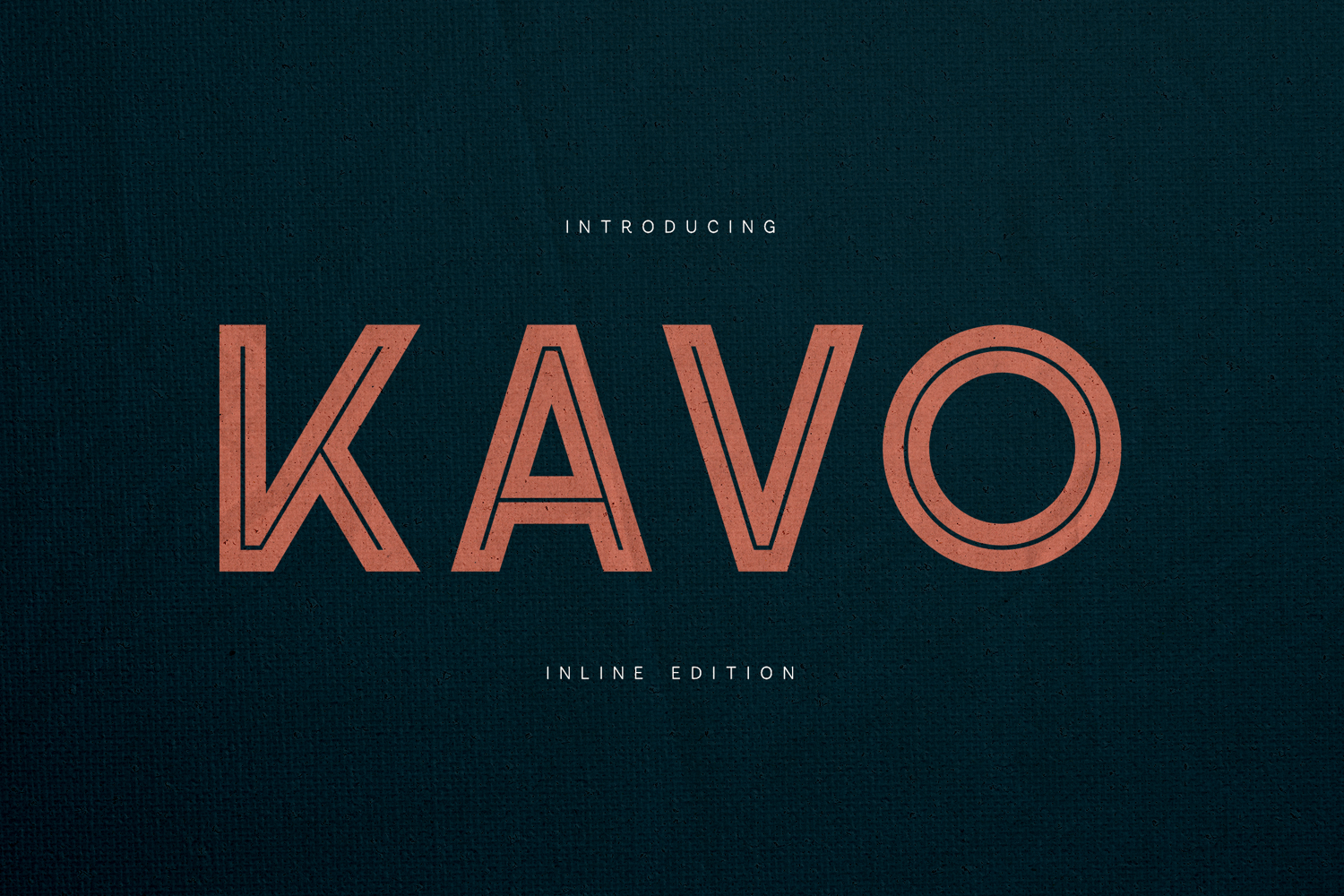
Kavo Inline Modern Geometric Outline Sans Serif
Kavo Inline is a modern geometric sans serif built with clean construction, rounded corners and a precise double-line inline structure. Designed for bold headlines and contemporary branding, it delivers a futuristic yet minimal aesthetic that feels confident and structured.
Its balanced proportions and technical outline style make it perfect for logos, posters, editorial layouts, packaging, apparel, signage, and digital branding.
The inline construction creates depth without heaviness — strong enough for impact, refined enough for premium design.
Branding, modern logos, fashion editorials, posters, album covers, tech identity, luxury packaging, architecture visuals, automotive branding, streetwear graphics and high-impact typography layouts.
Clean. Structured. Confident.